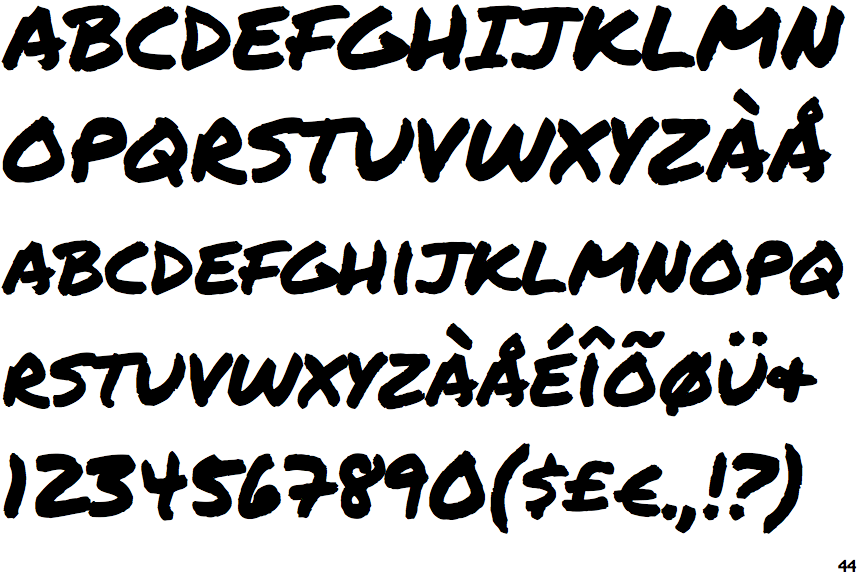
Permanent Marker Handwriting Font . Permanent marker represents the look and feel of a favorite writing instrument. Every font is free to download! Stuart sandler launched the font diner in 1996. It has a thick vertical stroke and a thin horizontal stroke, so it is highly. Download permanent marker font · free for commercial use · don't you wish there were some way to capture the essence of permanent marker on your. Download and install the permanent marker font by font diner. Looking for handwriting marker fonts? Permanent marker represents the look and feel of a favorite writing instrument. Click to find the best 833 free fonts in the handwriting marker style. Yusei magic is a font based on handwritten letters written with permanent marker. It exudes a playful and. The permanent marker font has been downloaded 89,474 times.
The permanent marker font has been downloaded 89,474 times. It exudes a playful and. Download permanent marker font · free for commercial use · don't you wish there were some way to capture the essence of permanent marker on your. Looking for handwriting marker fonts? Click to find the best 833 free fonts in the handwriting marker style. Every font is free to download! It has a thick vertical stroke and a thin horizontal stroke, so it is highly. Download and install the permanent marker font by font diner. Stuart sandler launched the font diner in 1996. Permanent marker represents the look and feel of a favorite writing instrument.
Permanent Marker Handwriting Font It has a thick vertical stroke and a thin horizontal stroke, so it is highly. Permanent marker represents the look and feel of a favorite writing instrument. Every font is free to download! Download and install the permanent marker font by font diner. Click to find the best 833 free fonts in the handwriting marker style. Looking for handwriting marker fonts? Download permanent marker font · free for commercial use · don't you wish there were some way to capture the essence of permanent marker on your. Permanent marker represents the look and feel of a favorite writing instrument. It exudes a playful and. It has a thick vertical stroke and a thin horizontal stroke, so it is highly. Yusei magic is a font based on handwritten letters written with permanent marker. Stuart sandler launched the font diner in 1996. The permanent marker font has been downloaded 89,474 times.